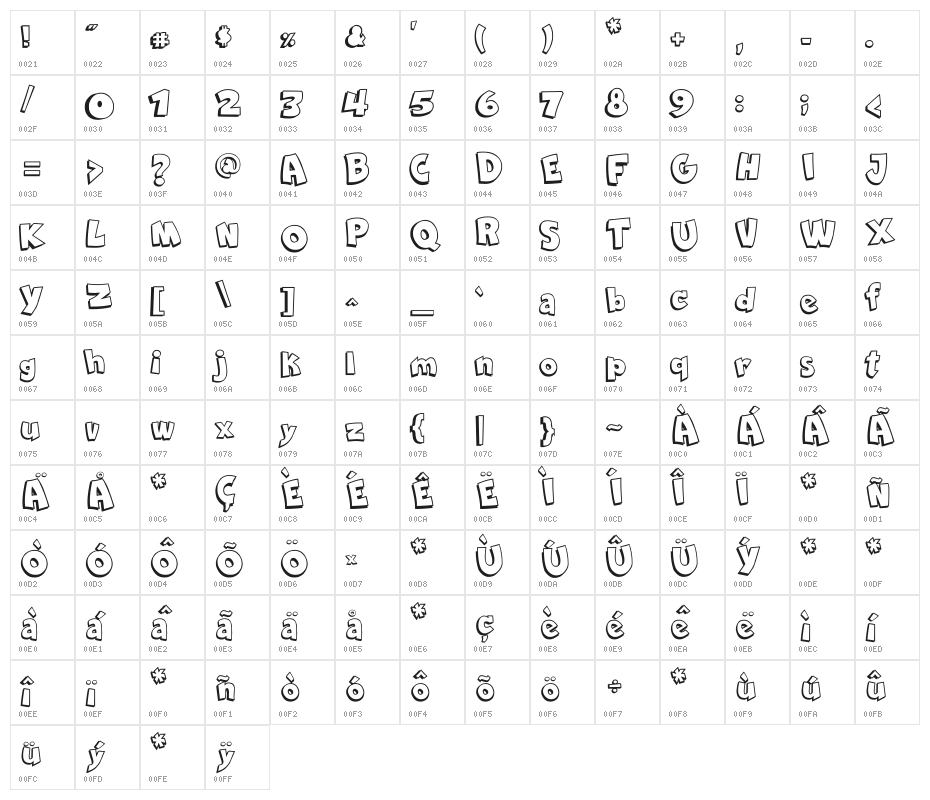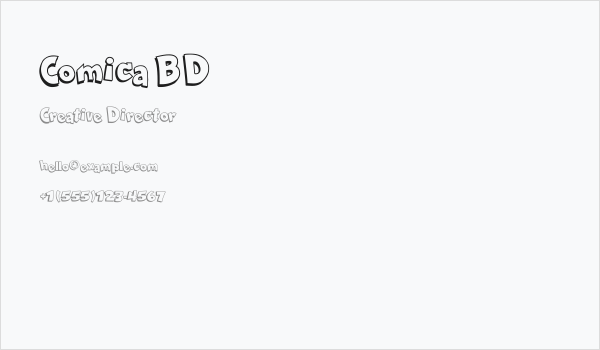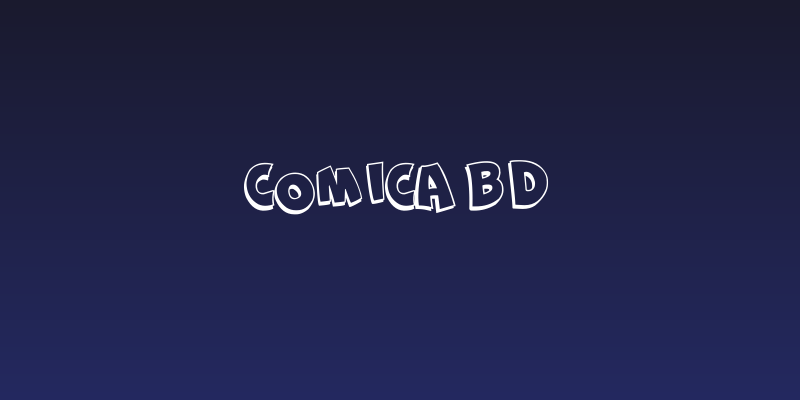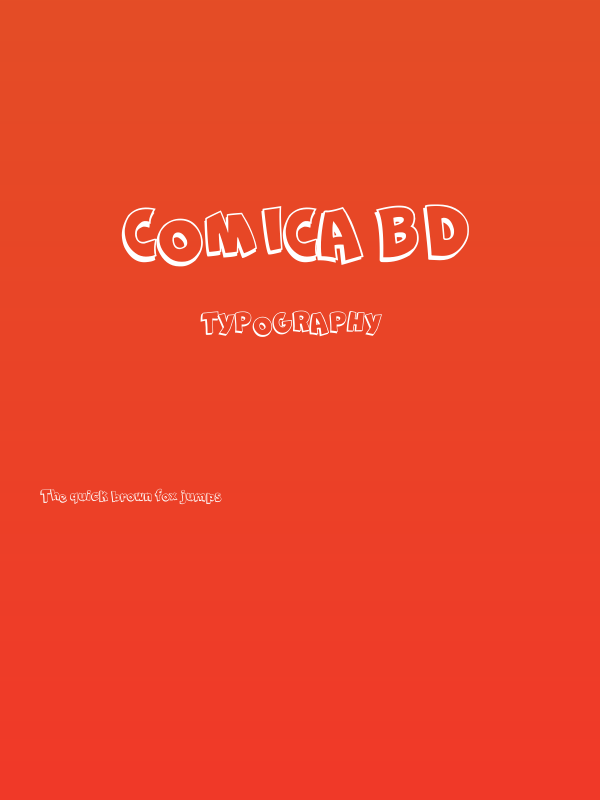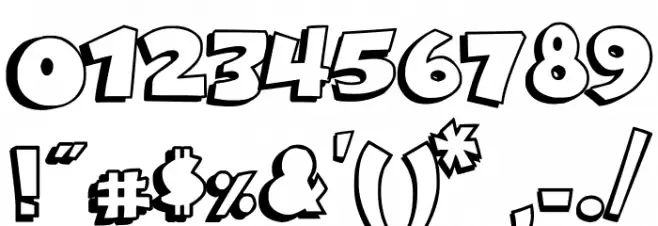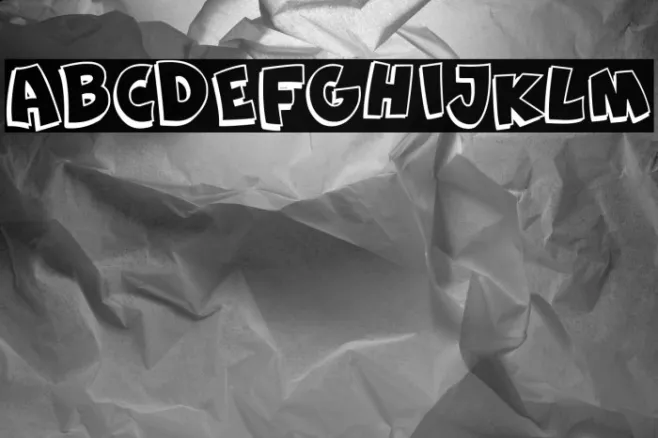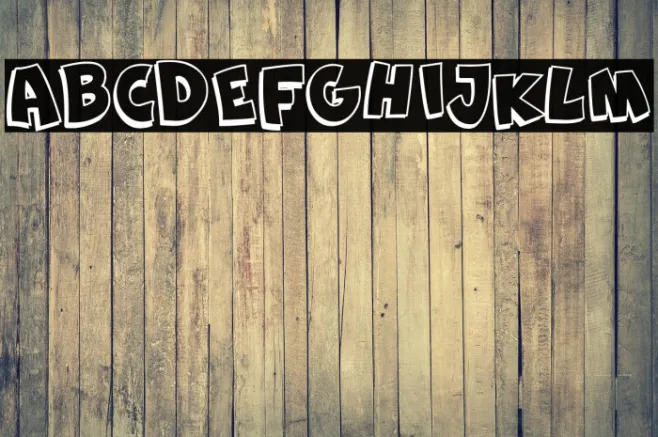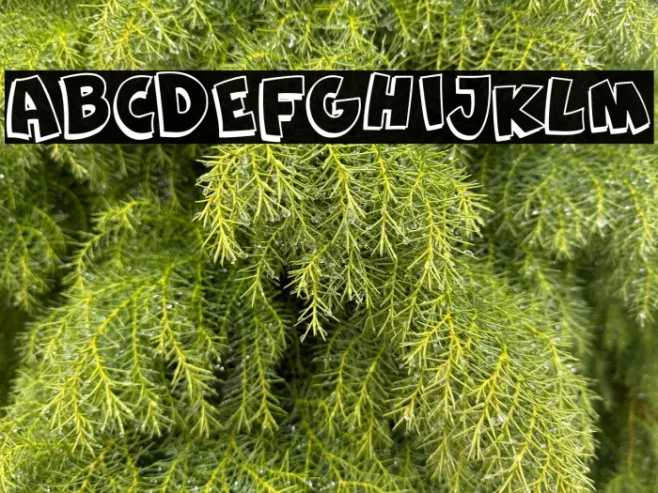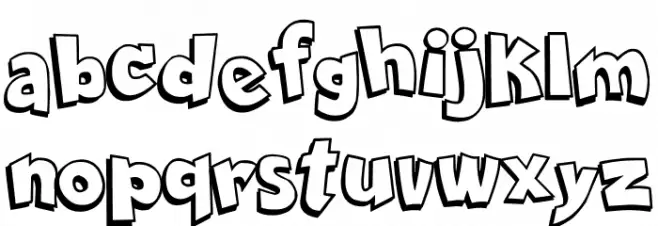
Comica BD Font
Comica BD Description
This playful and bold font features a cartoonish style with thick, exaggerated strokes and a three-dimensional effect created by a shadow outline. The characters are rounded and have a whimsical, hand-drawn appearance, making them ideal for projects that require a fun and informal tone. The uppercase and lowercase letters maintain a consistent style, with the numbers and special characters following suit. The font's unique style is perfect for capturing attention and adding a lively touch to any design.
| Overall Style | Playful, Cartoonish, Fun |
| Proposed Projects | Ideal for comic books, children's books, playful branding, posters, and party invitations. |